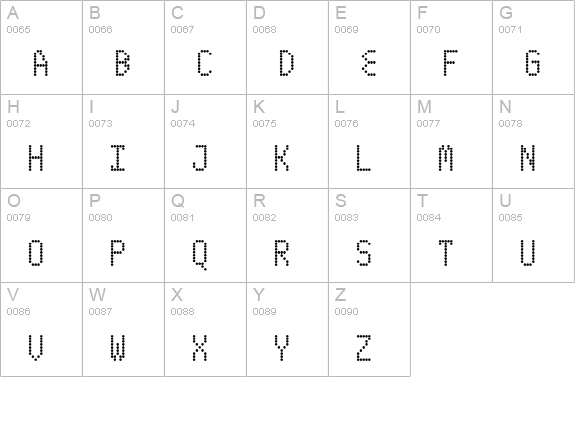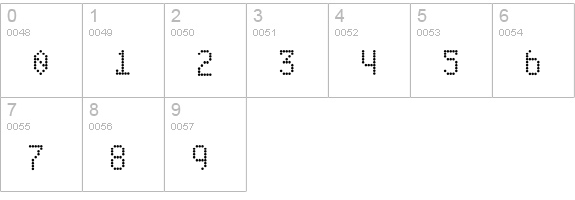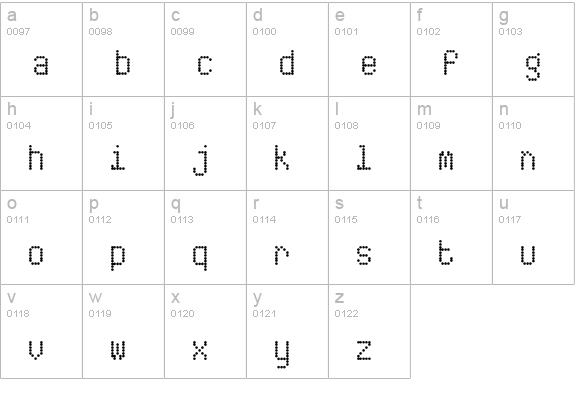
ABS2 Font Details
ABS2 font is a modern and sleek typeface that exudes a sense of sophistication and elegance. Its clean lines and sharp angles make it perfect for adding a contemporary touch to any design project. Whether you're creating a logo, poster, or website, ABS2 font will help your text stand out and make a lasting impression. What's even better is that ABS2 font is available for free download at FontsMarket.com. This means you can easily access this stylish font without any cost, making it a great choice for designers on a budget. Don't miss out on the opportunity to enhance your projects with the distinctive look of ABS2 font - download it today and elevate your designs to the next level.